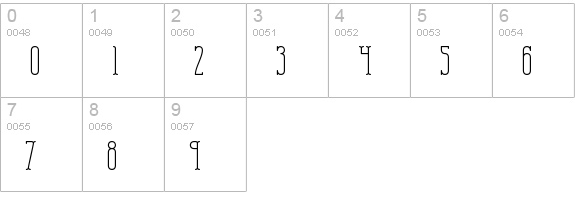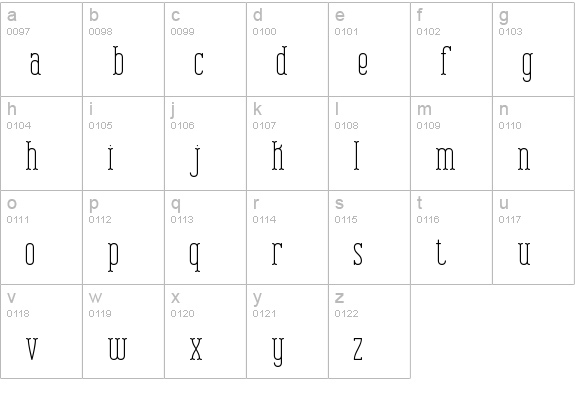
Combustion Plain BRK Font Details
Combustion Plain BRK is a bold and striking font that exudes power and energy. Its sharp edges and clean lines make it perfect for making a bold statement in your designs. Whether you're creating posters, logos, or headlines, Combustion Plain BRK is sure to grab attention and leave a lasting impression. What's even better is that Combustion Plain BRK is completely free to download at FontsMarket.com. This means you can add this dynamic font to your collection without any cost, making it a valuable asset for any designer looking to make a big impact with their work. Don't miss out on the opportunity to elevate your designs with Combustion Plain BRK - download it for free today!